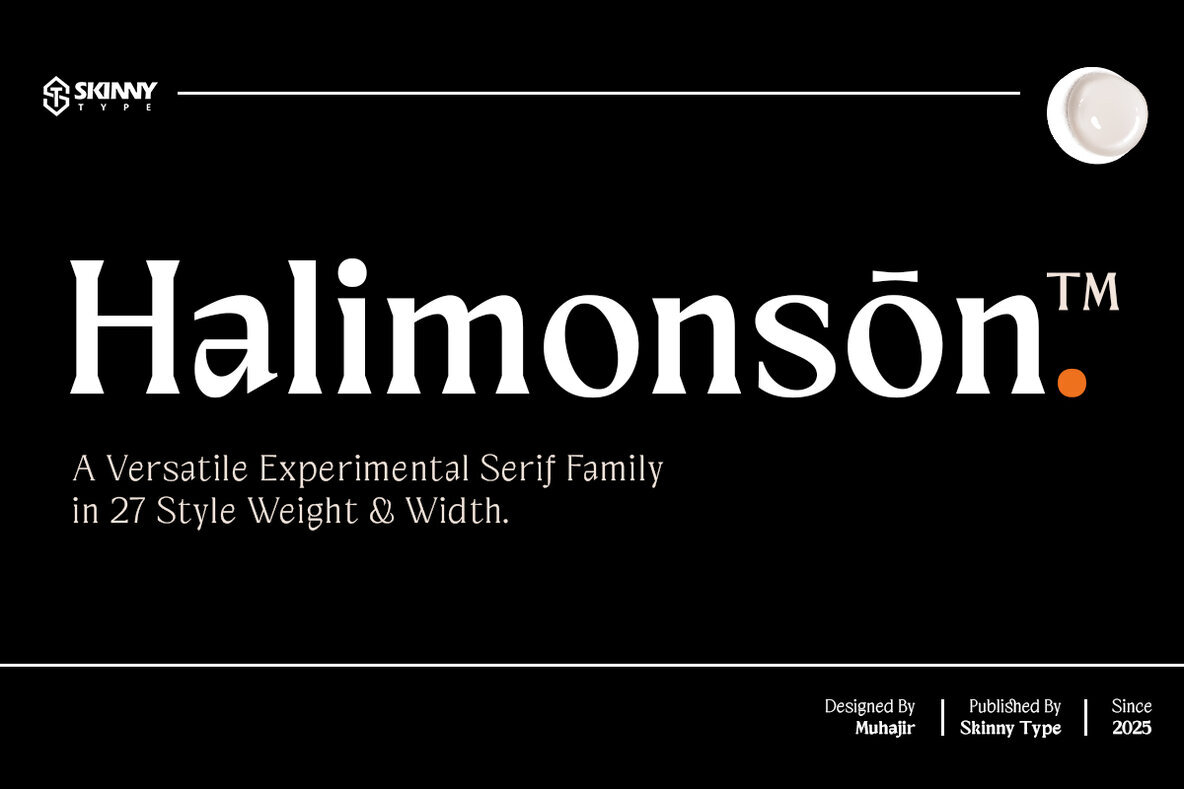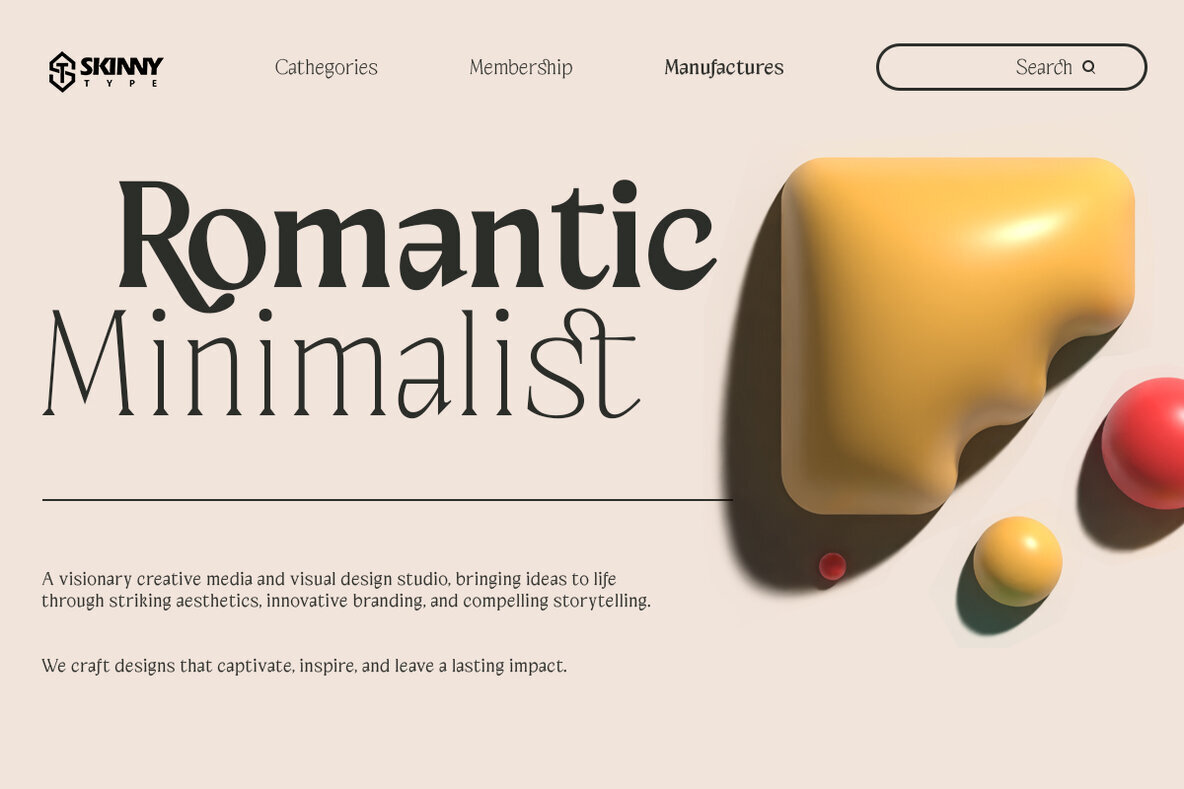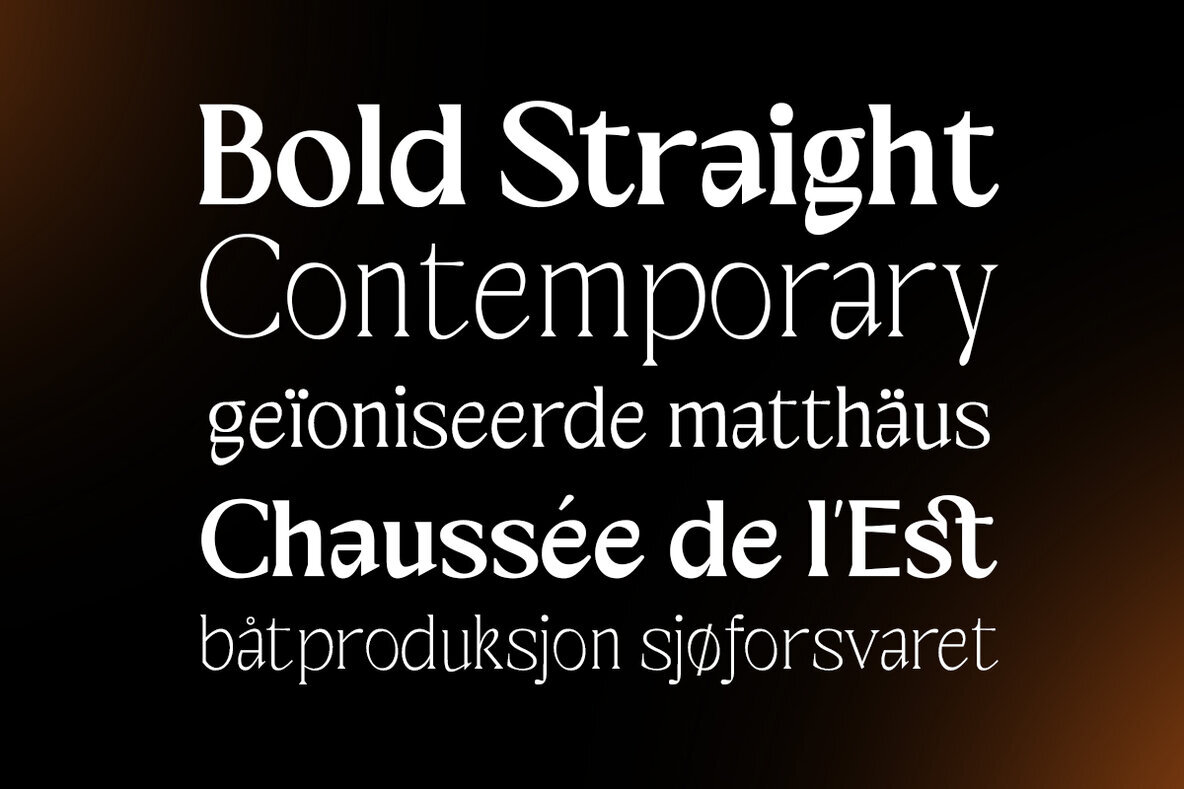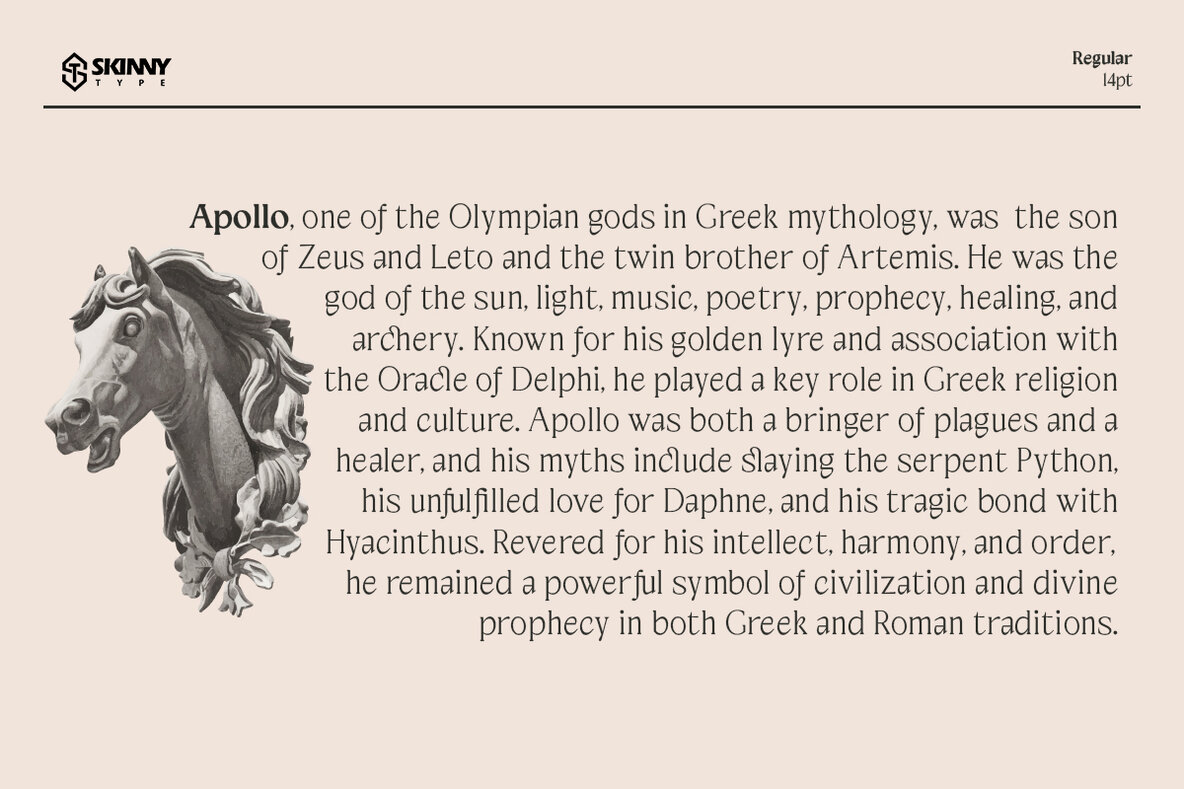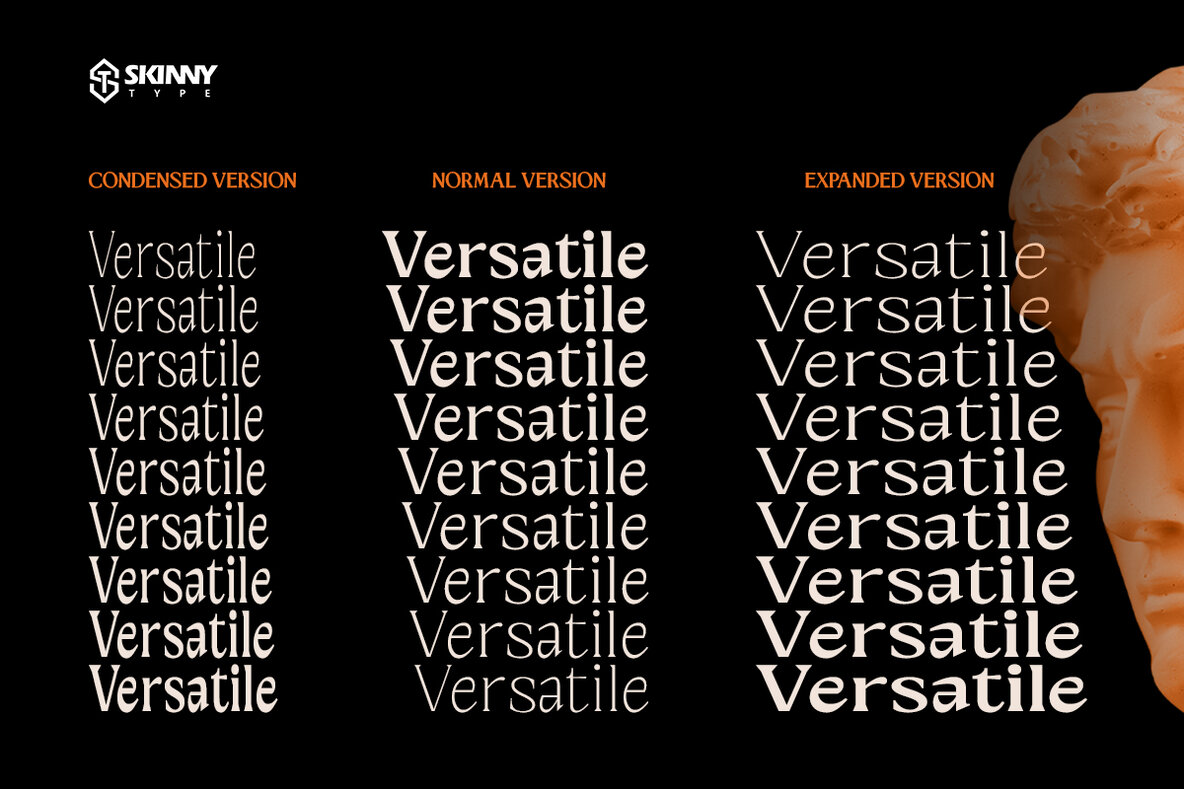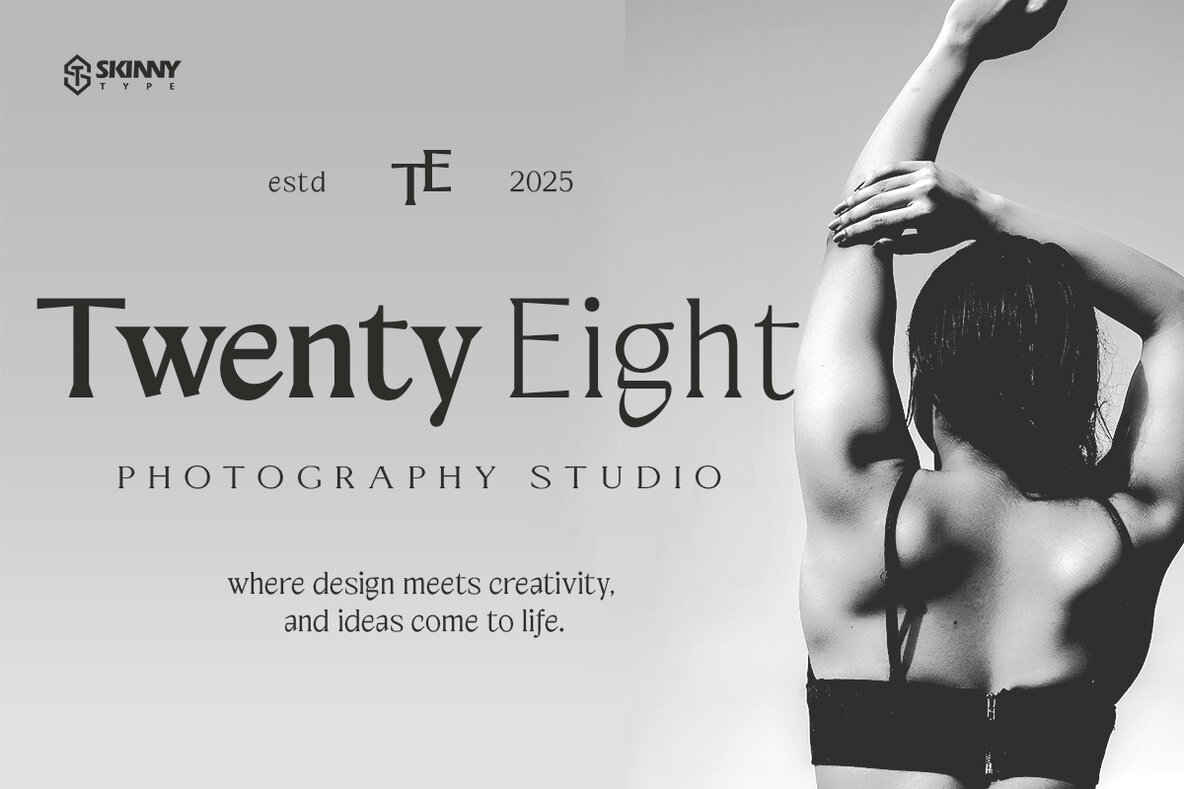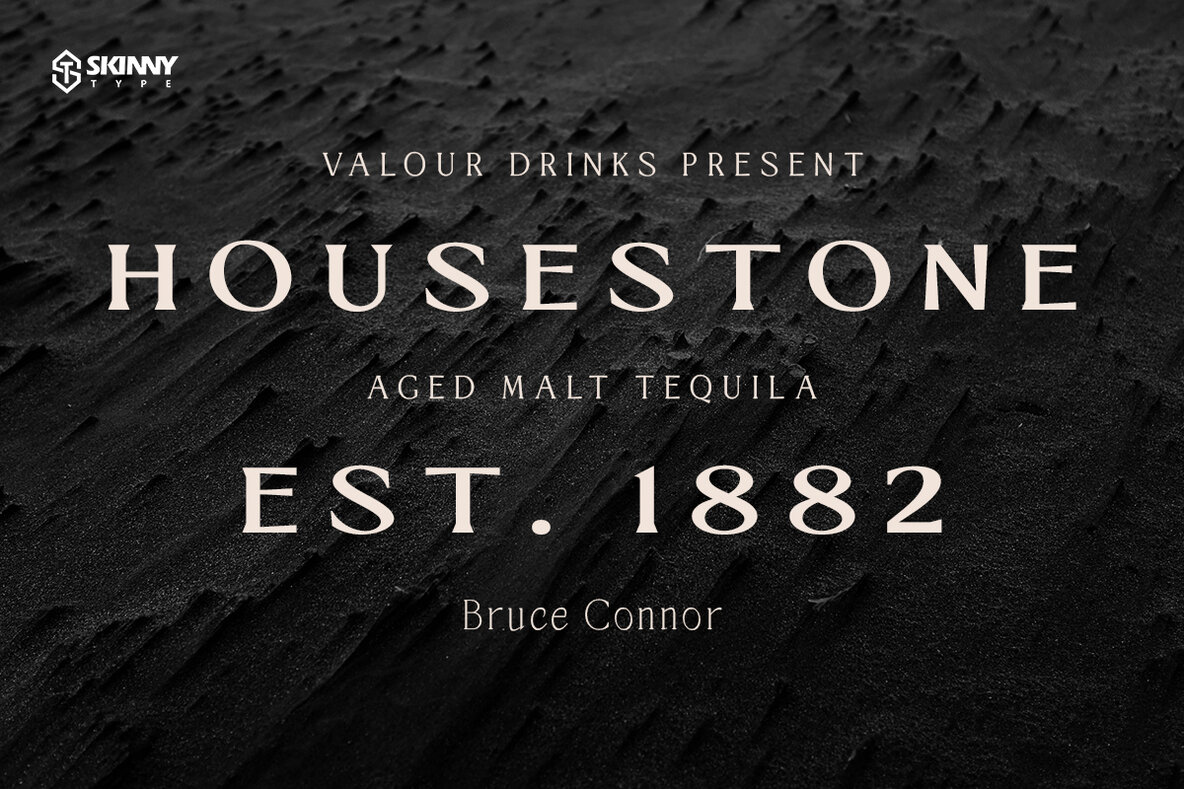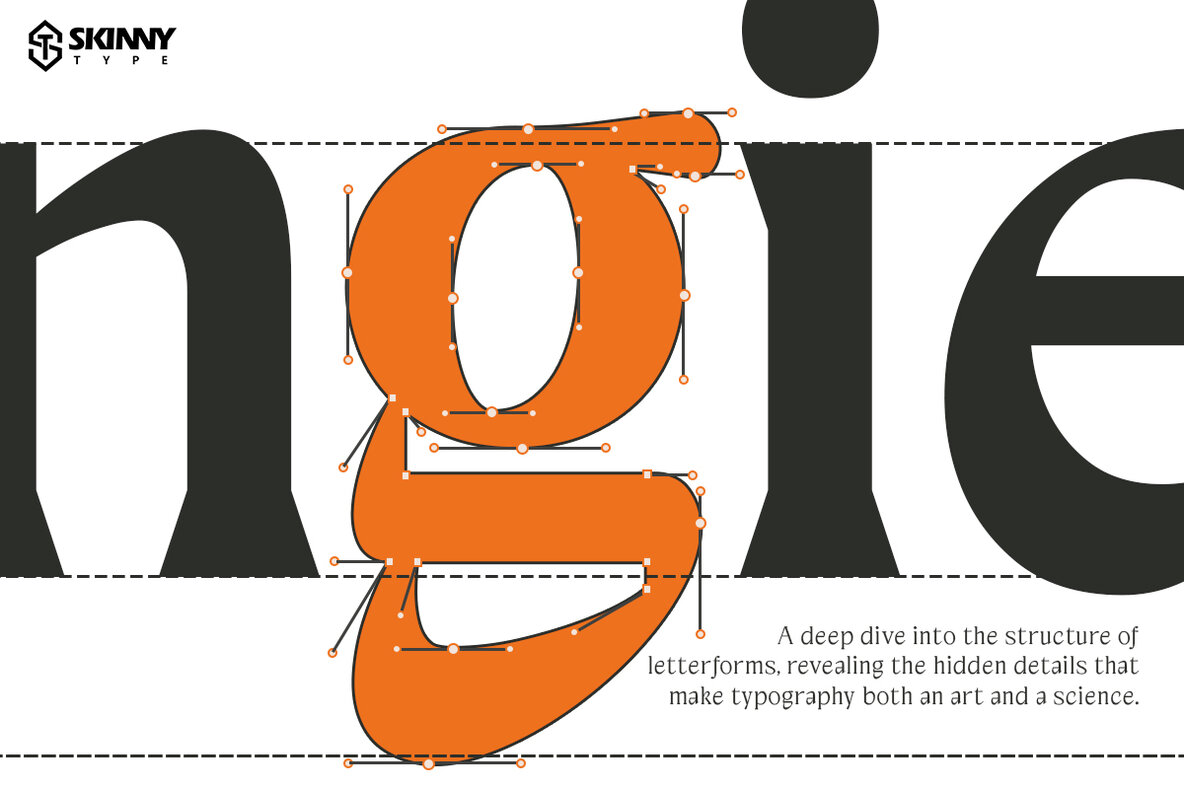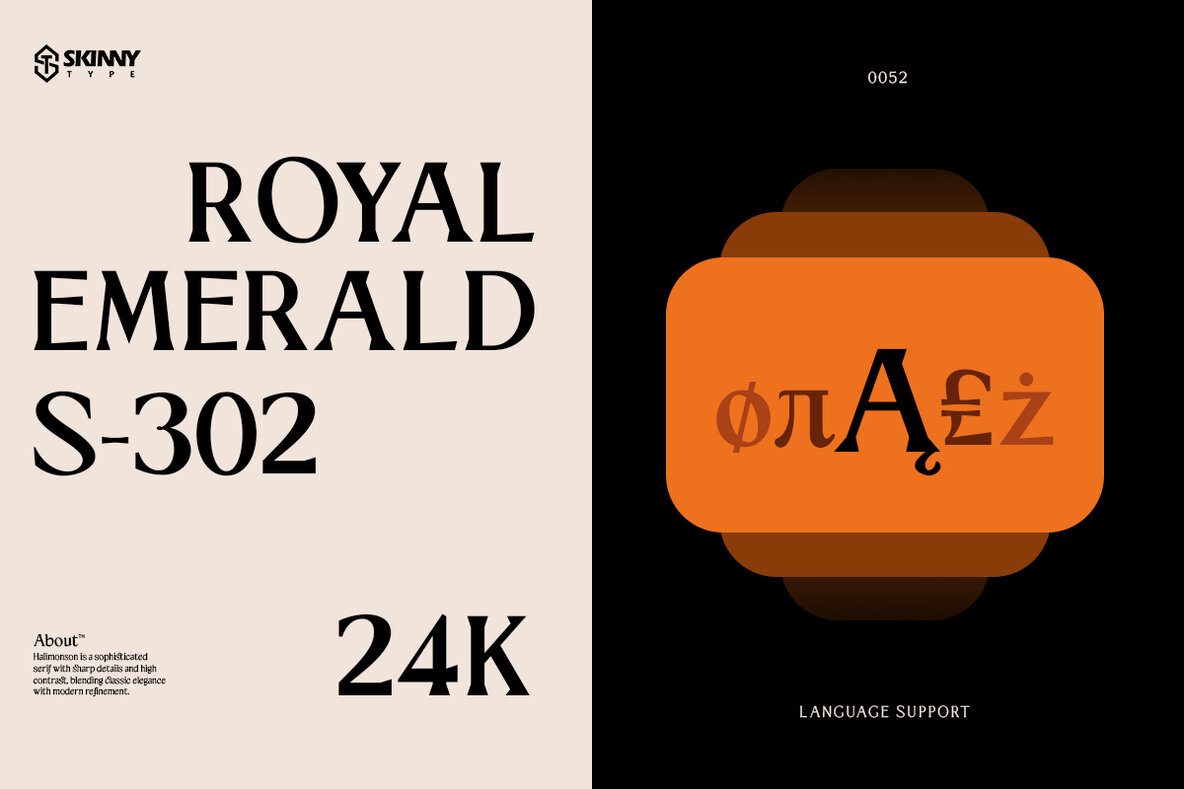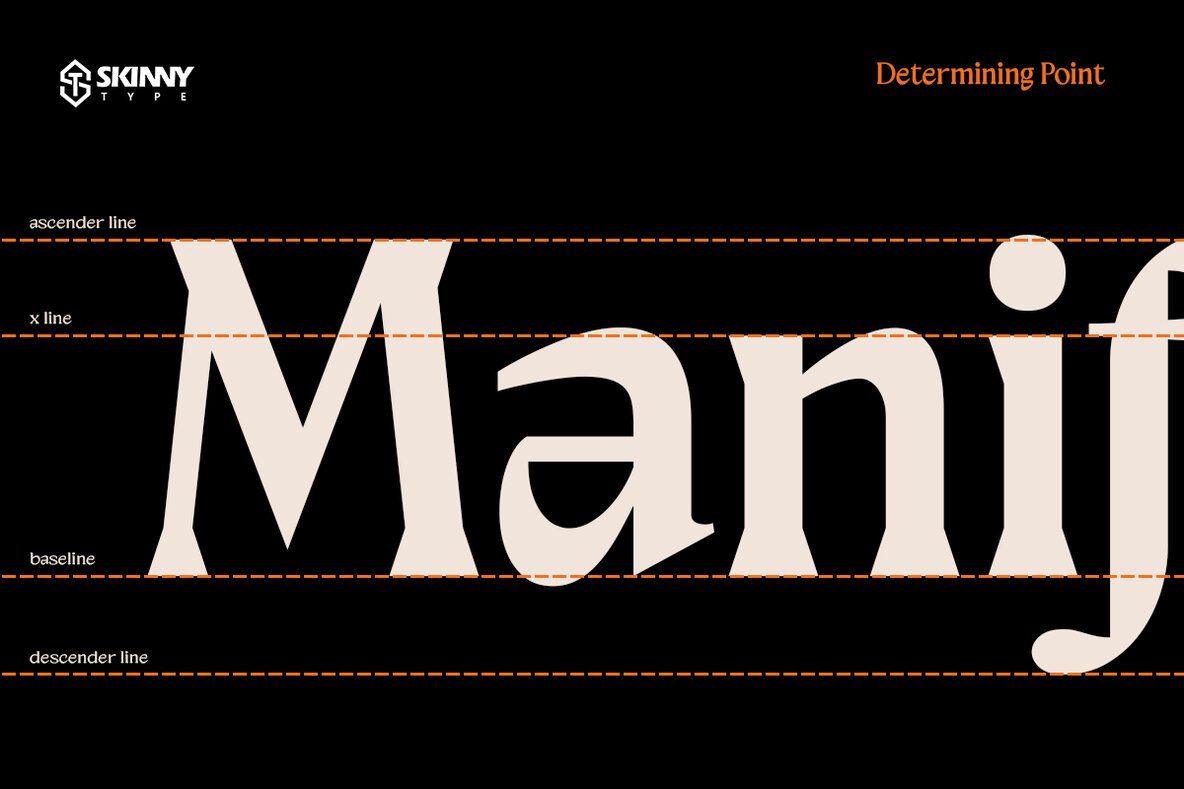
Halimonson Font
Halimonson™ is a sophisticated serif typeface that blends classic elegance with contemporary experimental design. Crafted with precision, this type family offers 27 styles in various weights and widths, making it a versatile choice for branding, editorial layouts, and high-end typography. With its bold yet refined letterforms, Halimonson™ stands out through its contrasting strokes, unique serifs, and subtle curvature, creating a balance between tradition and modernity. The inclusion of experimental details makes it suitable for luxury branding, book design, packaging, and high-end digital experiences. Published by Skinny Type and designed in 2025, Halimonson™ is an exceptional choice for designers seeking a typeface that exudes sophistication, creativity, and adaptability across different applications.